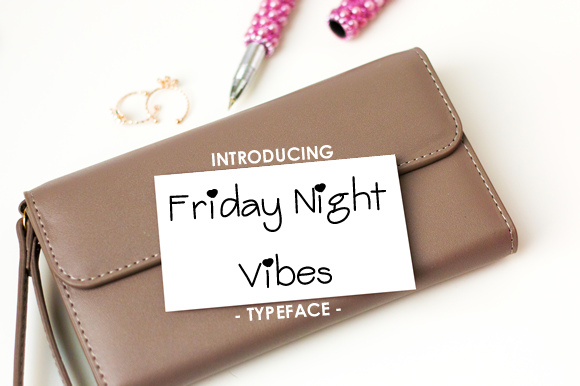
Friday Night Vibes Font
About Friday Night Vibes Font
Friday Night Vibes is a cutesy sans serif font, perfect for use in youthful designs. This font has heart embellishments so it has a teenager appeal as a display or body text.